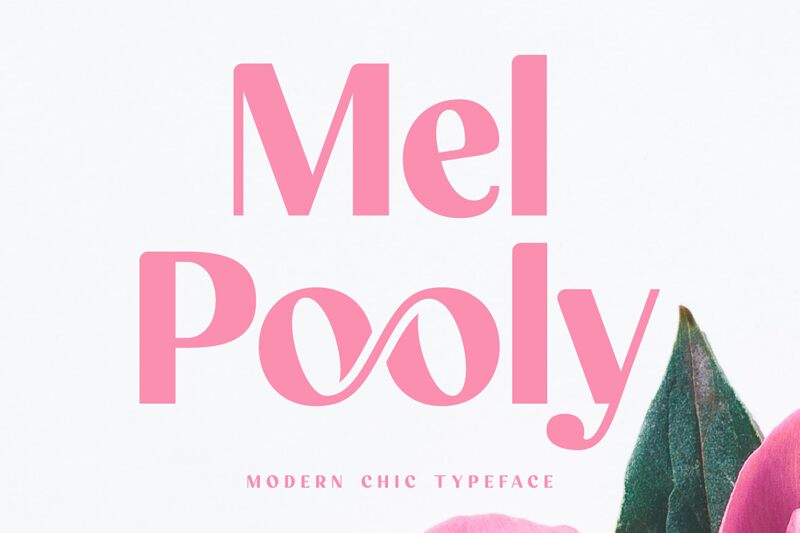
Mel Pooly is a chic sans serif font designed by Farida Kurniawan. Perfect for making a strong impression in logos, posters and titles, it's also suitable for creative projects such as book covers and website headers.
Mel Pooly